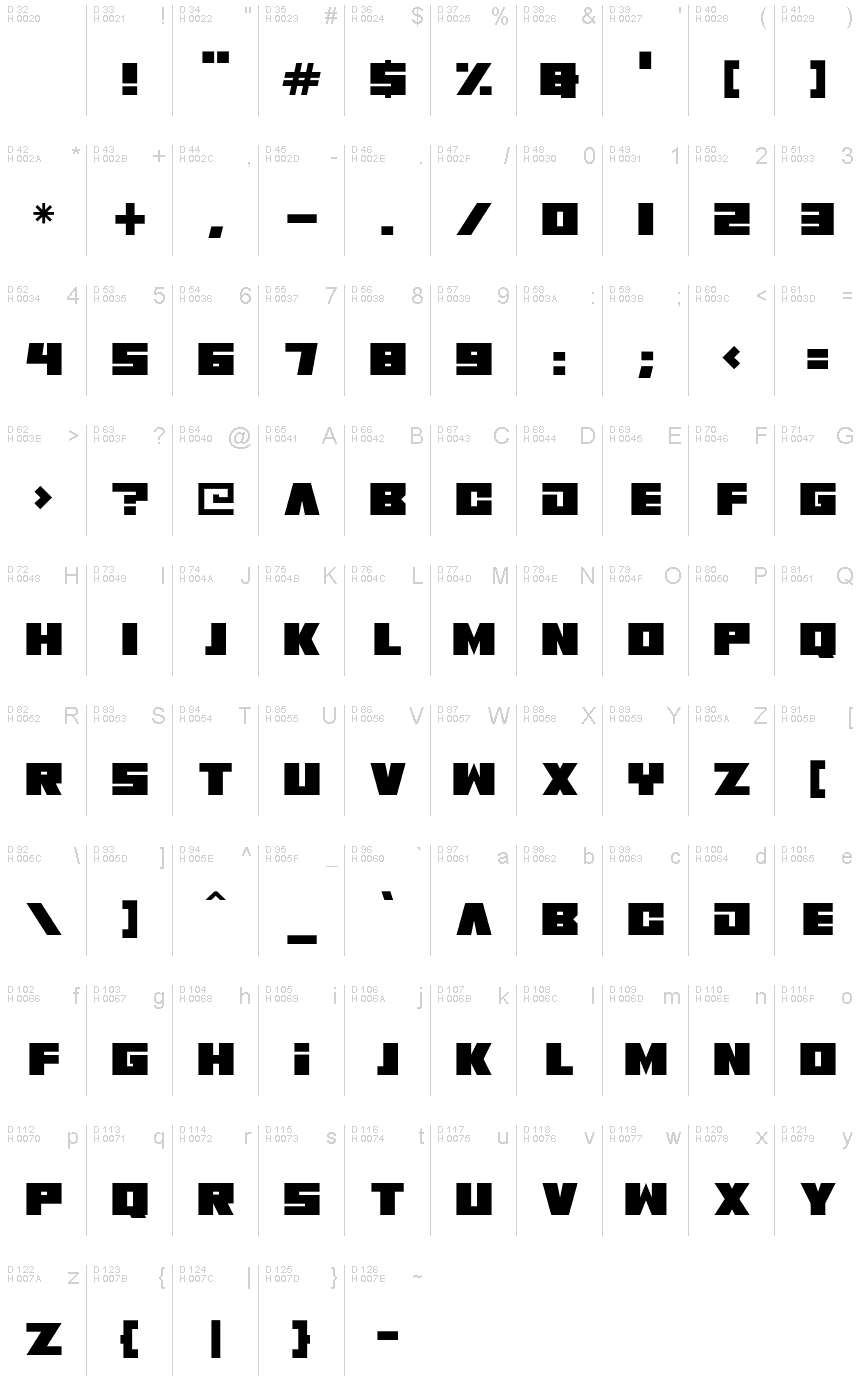
Antimatter
Antimatter is a display typeface that packs a futuristic punch. Designed by Darrell Flood, this extra-bold font features an expanded width that commands attention. With its sleek lines and sharp edges, Antimatter is perfect for projects that require a bold and modern touch. From high-tech websites to sci-fi movie posters, this font will add an otherworldly element to any design. Whether you're creating a branding campaign for a tech company or designing packaging for a new energy drink, Antimatter will help you stand out from the crowd with its cutting-edge style.